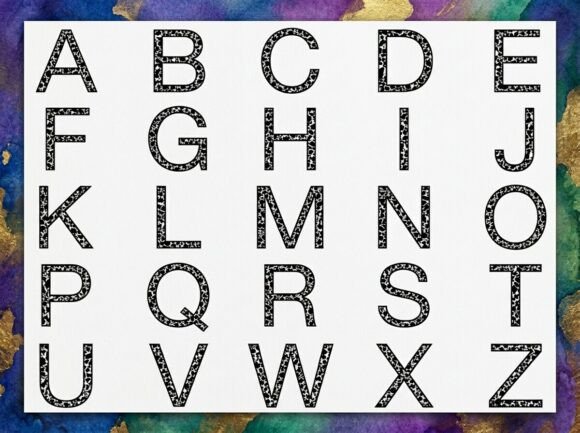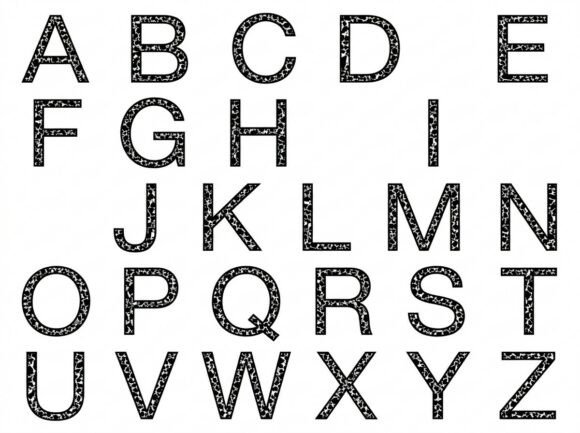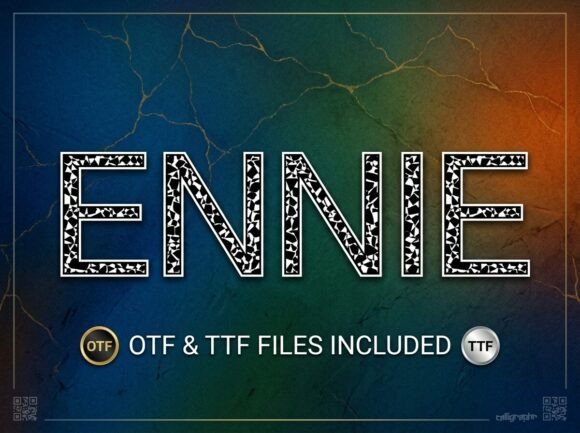
Introducing Ennie Font: A Stunning Decorative Display Font
Are you tired of using the same old fonts for your designs? Do you want to add a touch of uniqueness and creativity to your projects? Look no further than Ennie Font, a decorative display font that is sure to turn heads. With its artistic elements and strong visual personality, this font is perfect for creators who want to break away from the ordinary.
What Makes Ennie Font Special?
Ennie Font is a carefully crafted font that is designed to be the center of attention. Its unique artistic elements and strong visual personality make it perfect for bold headlines, artistic logos, and creative packaging. Whether you’re a designer, craftsperson, or DIY enthusiast, this font is sure to elevate your projects to the next level.
Key Features of Ennie Font
- Unique Artistic Elements: Ennie Font features unique artistic elements that set it apart from other fonts. Each letter is carefully designed to be a work of art, making it perfect for high-impact headlines, logos, and decorative initials.
- Strong Visual Personality: This font has a strong visual personality that is sure to grab attention. Its bold and eye-catching design makes it perfect for projects that need to stand out.
- Versatile: Despite its bold design, Ennie Font is versatile enough to be used for a variety of projects, from bold headlines to artistic logos and creative packaging.
- Professional and Polished Finish: This font maintains a professional and polished finish, making it perfect for projects that require a high level of sophistication.
IMPORTANT NOTE BEFORE PURCHASE: Ennie Font is an ALL-CAPS (Uppercase Only) display typeface. It does not include lowercase letters. It is specifically designed for high-impact headlines, logos, and decorative initials where every letter is a work of art.
Who is Ennie Font For?
Ennie Font is perfect for:
- Designers: Graphic designers, typographers, and visual designers will love Ennie Font for its unique artistic elements and strong visual personality.
- Crafters: Crafters, DIY enthusiasts, and makers will appreciate Ennie Font for its versatility and ease of use.
- Business Owners: Business owners who want to add a touch of creativity and uniqueness to their branding, marketing materials, and packaging will love Ennie Font.
Ennie Font is a stunning decorative display font that is sure to elevate your designs to the next level. With its unique artistic elements, strong visual personality, and versatility, this font is perfect for creators who want to break away from the ordinary. Whether you’re a designer, craftsperson, or DIY enthusiast, Ennie Font is a great addition to your font collection.